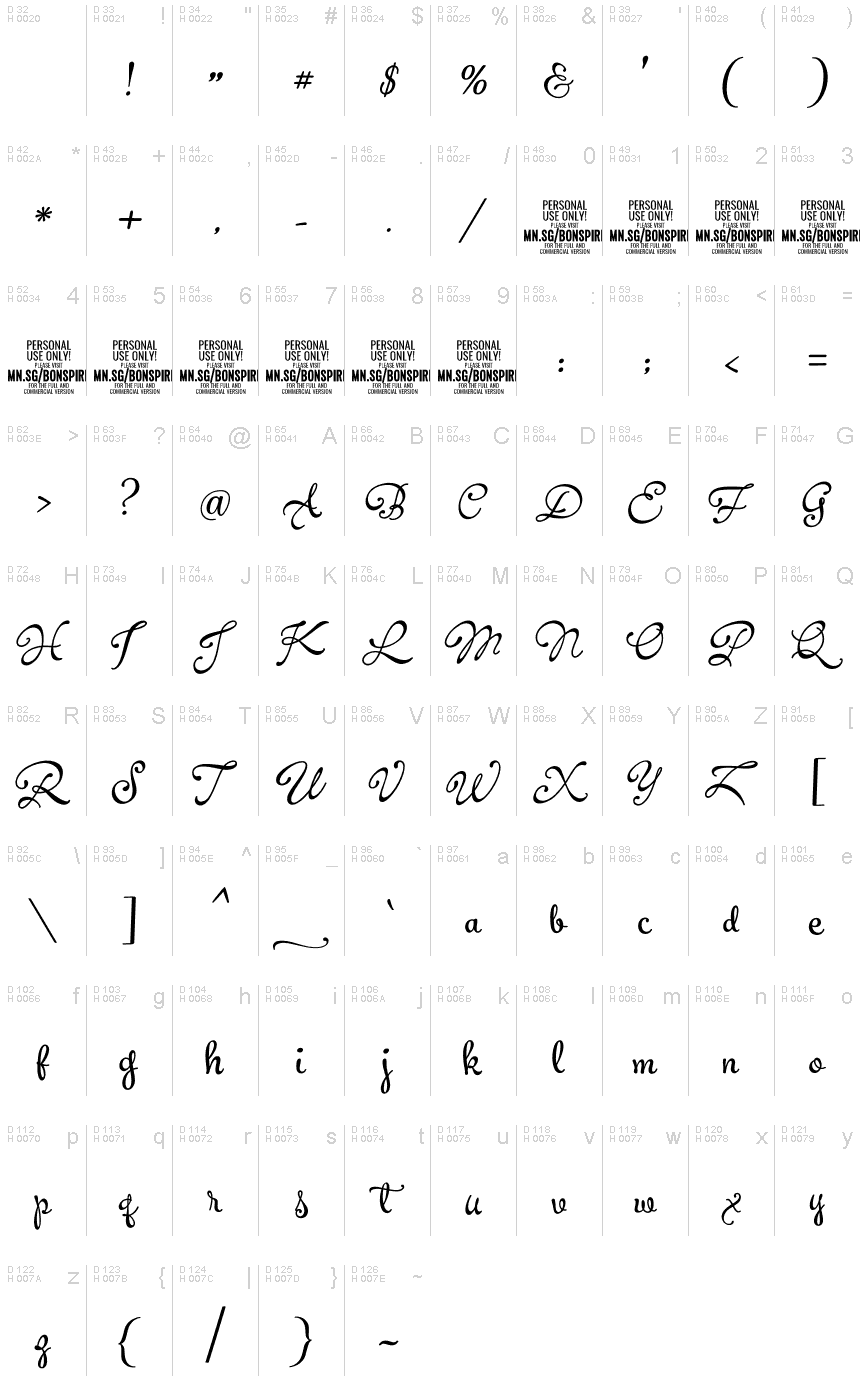
Bonspire Script PERSONAL USE Regular
Bonspire Script, designed by Mans Greback, is a captivating calligraphy font with a touch of whimsical elegance. Its semi-light weight adds a delicate and graceful feel to any project.
With its lively swashes and optimistic flair, Bonspire Script is perfect for creating heartfelt wedding invitations or adding a touch of charm to eye-catching advertisements.
Whether you're looking to capture the essence of romance or add a playful sophistication, this font will surely make your designs stand out.
Use underscore _ anywhere in a word for swashes.
Example: Love_rose
Use multiple underscore for different swashes.
Example: Wonder________woman